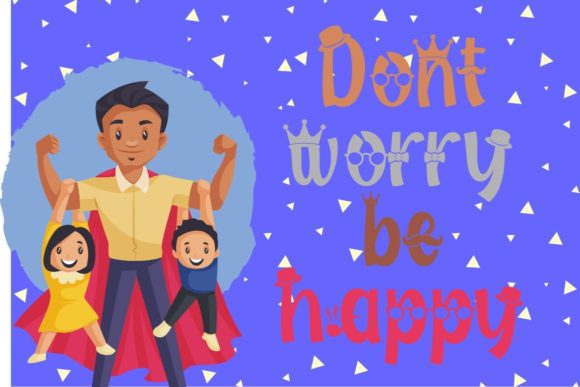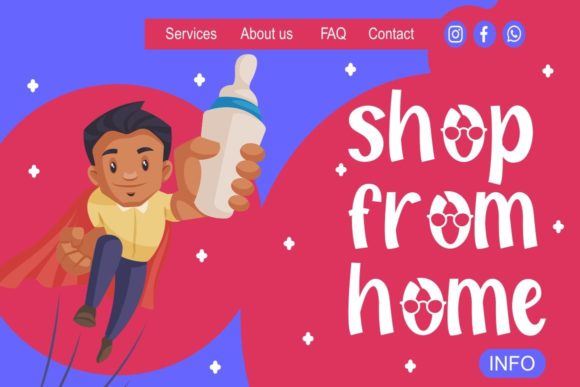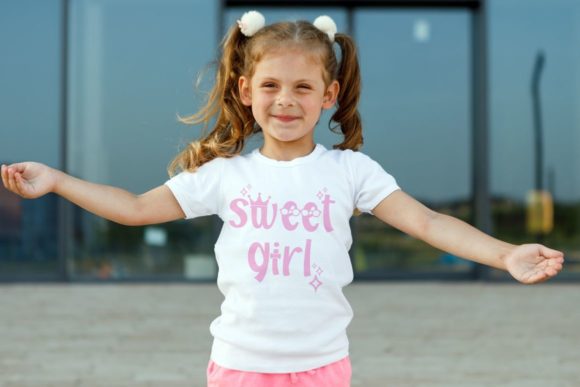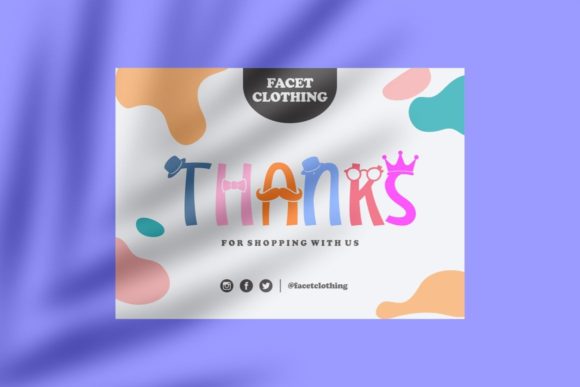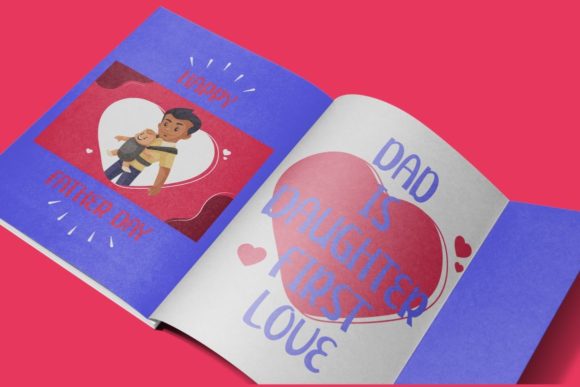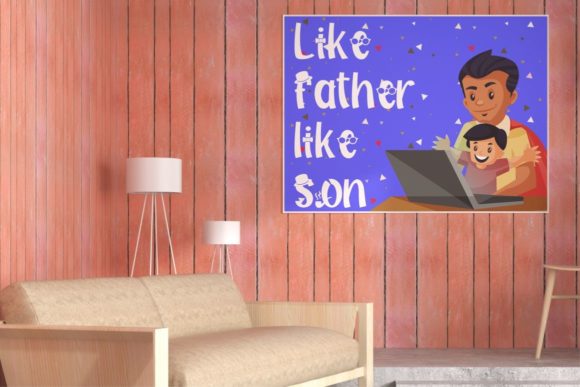
Introduction to My Hero Father Font
My Hero Father is a fun, lovely and sweet decorative font.
It embodies playfulness and authenticity and is the perfect choice for any children activity or school project .